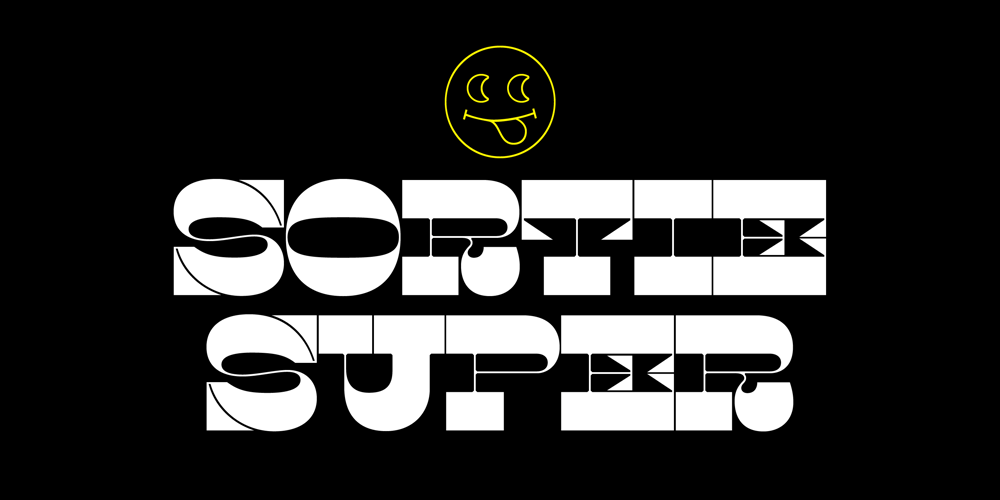
Sortie Super
Sortie Super font
Sortie Super Font Family was designed by Lewis McGuffie and published by Lewis McGuffie Type. Sortie Super contains 1 styles and family package options. Sortie Super is a take on one of the kings of display lettering – Caslon’s high-contrast, reversed stress ‘Italian’ style. It looks great at big sizes and in short flurries… and shouldn’t be used in confined spaces. When compared with the original face, the weight and contrast of Sortie Super has been exaggerated. To add gravity to the letters I’ve increased their width overall and reduced the spacing to a hair-line fracture for added visual impact. Characters like ‘S’, ‘E’,’O’ and ‘Z’ are relatively close to their historical precedents – however the terminals on the ‘C-G-S-З-Є’, which have been drawn so to be more consistent. Other aspects, such as the leg of the ‘R’ and ‘Я’, the apex of the ‘A’ and the spur of the ‘G’ are revised and simplified, to help spacing and optical weight across the alphabet. Also, to reduce visual noise terminals in characters like ‘C’, ‘J’ and ‘R” are horizontally aligned. Meanwhile, the central horizontal strokes in the ‘B’, ‘P’ and ‘R’ etc are reduced to a hairline, so as to create a more simplified system of thick-to-thin. The temptation when drawing this kind of esoteric display alphabet is to start to rely on modular components. Which, while copy-paste-repeat is a sure-fire way to make the face more visually consistent, it’s a lazy method that risks allowing the font become soulless and mechanical. An early experiment I made was making a monospaced version, which was useful in headlines, but it lost that loving feeling. So, by maintaining a handful of flourishes – the tail of the ‘?’, the inky drop of the ‘!’, the bulbous gloop of arms of the ‘Ж’ and ‘К’, the swirling legs in the ‘R’, ‘Я’ and ‘Л’, the big-bowling weight of the ‘J’ and ‘U’ – plus a few in-built inconsistencies and a bit of its own silliness, Sortie Super retains some of the organic warmth of its ancestor. Conversely, the counters, apertures and negative space are largely rigidly geometric, which helps give the revival font a bit of a modern touch. Sortie Super is an uppercase-only display font that comes with Western, Central and East European Latin, extended Cyrillic, Pinyin, as well as a set of hairline graphic features and symbols.